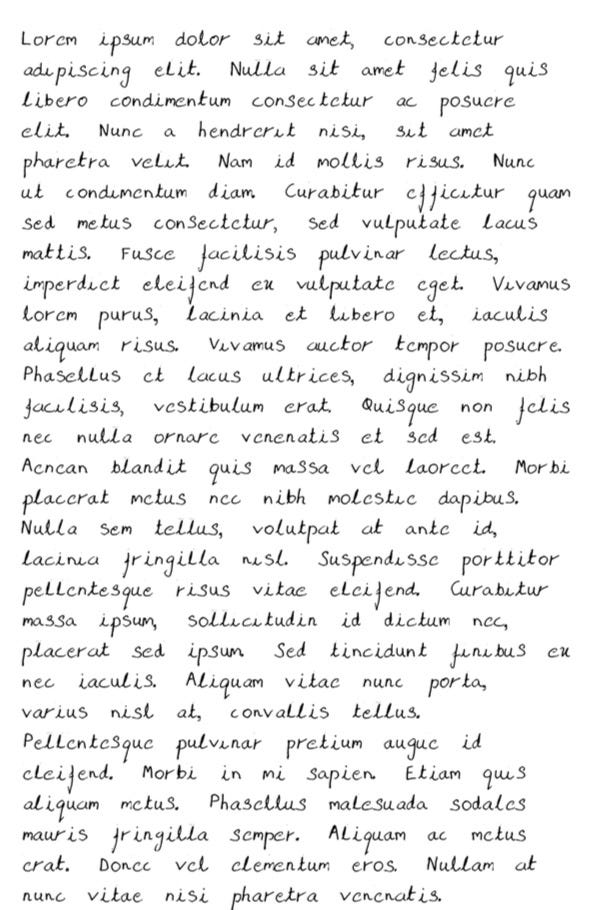
Use them for bold facebook posts, in messenger, in meta descriptions and everywhere you. To create any font style, you need to type the text into the search box and translate it into different forms.
Simple Convert Text Into Typewriter Font Idea In 2022, To default to that font in the future, click make default. The only time when you would see typewriter fonts would be in books.
This tool can be used for fun and generate different styles of text. Fancy text generator can convert regular text to cursive (ππ’ππ ππ£π), bold (ππ¨π₯π), calligraphy (π ππ©π©π¦π€π―πππ₯πΆ), typewriter (πππππππππ), bubble (ββ€ββββ) and other aesthetic fonts to use it in posts, bio, comments and messages on instagram. Click on the pdf page where you want to start typing. The different text fonts are all a part of the unicode standard which means that they're not like normal.
Please try the following steps: It helps for making college assignments. It helps to generate typewriter styled text to share on social media. We offer many formats for tiny text/letters and you can use this text on any social media platform including facebook, instagram & twitter etc. Font Details.
Then you will see it being automatically generated awesome & unique text fonts. Click the one you like the most to copy it to your clipboard. Convert text to hindi font. This text converter lets you make stunning and captivating alphabets and designs to create the best texts. Converting Handwriting To Text On The ReMarkable YouTube.
You can also choose custom font and background colors. Customize your typewriter letter text with our generator below, and download or print your custom typewriter letters instantly. Use them for bold facebook posts, in messenger, in meta descriptions and everywhere you. They are useful useful when displaying tabular data (like in a spreadsheet) and you want the columns to line up. AdobeIllustrator ConvertTexttoOutlines 1. Type 2. Create Outlines.
The word calligraphy is essentially a greek word that translates into beautiful writing. Convert any normal text into small text using our completely free small text generator. Then you will see it being automatically generated awesome & unique fancy text fonts. Monospace fonts can mimic a typewriter or computer terminal. How To Convert Text Into Audio Using Notepad.
Open the pdf > go to tools > comment > text comment > add the text you want once done click on the close button for the comment tool > on the main screen, double click on the text > it will give you the toolbar to change the font, size, and color of the font. Text to handwriting converter is a free tool that converts computer text into human handwriting text. Kingsthings trypewriter recreates the uneven look of real typewriter text with an uneven baseline and slightly skewed letters. You'll notice a toolbar now shows up with font options. Speech Recognition How To Convert Speech Into Text With Google Docs.
The tool is simply easy to use. This text font generator allows you to convert normal text into different text fonts that you can copy and paste into instagram, facebook, twitter, twitch, youtube, tumblr, reddit and most other places on the internet. The word calligraphy is essentially a greek word that translates into beautiful writing. 1001 free fonts offers the best selection of typewriter fonts for windows and macintosh. Microsoft Word Turn Text into Hyperlinks.
They are useful useful when displaying tabular data (like in a spreadsheet) and you want the columns to line up. Enter the primary body text size. It helps for making college assignments. There are new fonts announced on the site, so we. Convert Typed Text To Handwriting mertqpal.
Maybe you want to heat up a loved one with a handwritten love letter, or you're looking. The different text fonts are all a part of the unicode standard which means that they're not like normal. The only time when you would see typewriter fonts would be in books. The most notable typewriter fonts for microsoft word are courier new and lucida console.